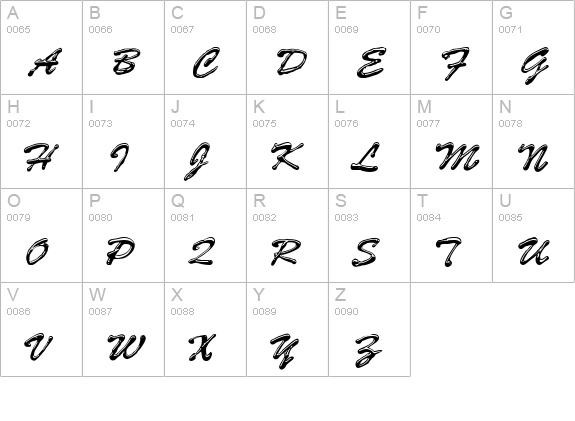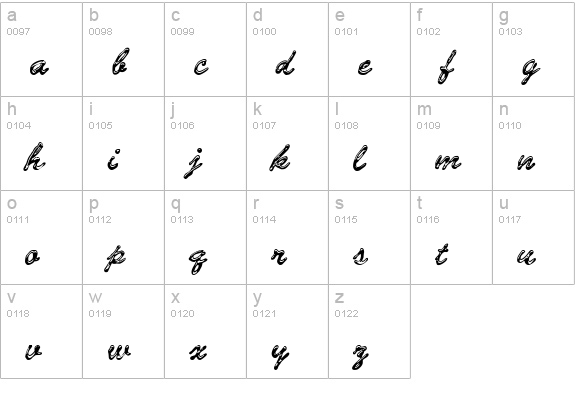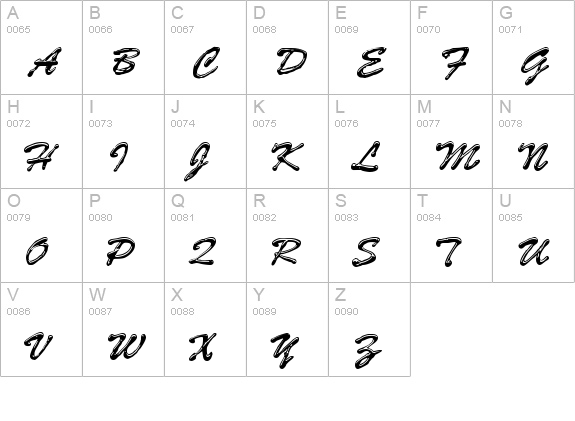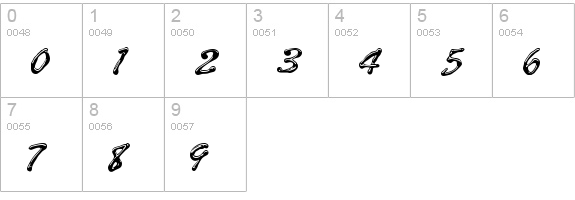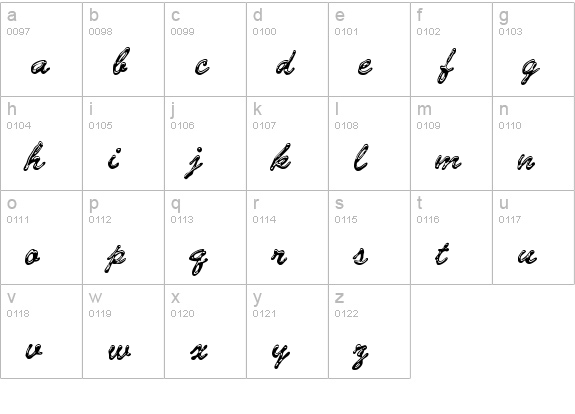
Bloop Script Font Details
Bloop Script font is a whimsical and playful typeface that exudes charm and personality. With its unique hand-drawn style and flowing lines, Bloop Script is perfect for adding a touch of fun to your projects. Whether you're designing greeting cards, invitations, or branding materials, this font will bring a sense of joy and creativity to your work. The best part? Bloop Script is completely free to download at FontsMarket.com! So go ahead and grab this delightful font to infuse your designs with a sense of whimsy and originality. Whether you're a seasoned designer or just starting out, Bloop Script is sure to become a favorite in your font collection.